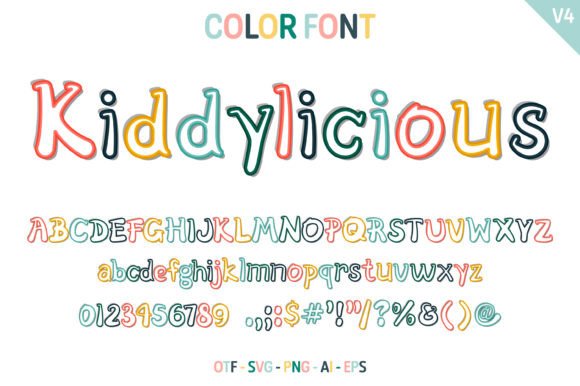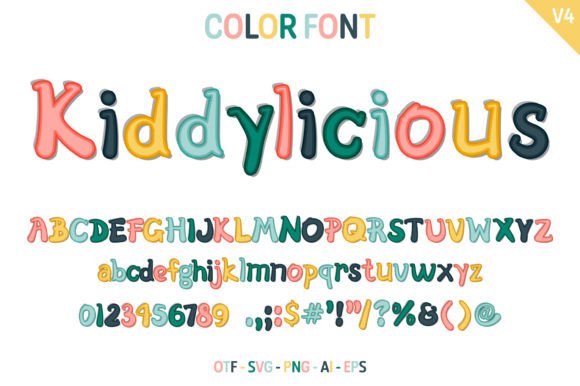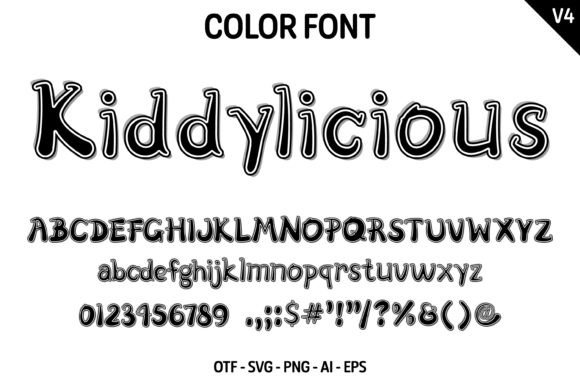
The Joy of Designing for Kids: Introducing the Kiddylicious V4 Font
Remember the thrill of creating something special for a child? Maybe it was a birthday card, a handmade gift, or a colorful poster. Whatever it was, you knew you wanted to make it extra special and fun. As a designer, you’ve probably experienced that same excitement when working on projects geared towards kids. That’s where the Kiddylicious V4 Font comes in – a playful and fun color font that’s sure to bring a smile to any child’s face.
This versatile font is designed to make your designs stand out, with rounded edges and bold weight that’s easy to read. With a full set of upper and lowercase letters, numbers, and punctuation, you have the flexibility to create a wide range of designs, from children’s books and posters to logos and more. The Kiddylicious V4 Font is a valuable addition to any designer’s toolkit, offering a unique and creative way to bring your ideas to life.
Kiddylicious V4 Font Key Features
• Font Family: Kiddylicious V4, a playful and child-friendly font designed for various applications.
• Font Size: Designed to be highly legible at various sizes, with optimal readability between 8pt and 24pt.
• Resolution: Suitable for both screen and print, with clear and crisp rendering at resolutions up to 300 DPI.
• Unique Characteristics: Features a unique blend of rounded edges and subtle textures, making it an ideal choice for children’s educational materials, entertainment, and lifestyle brands.
Kiddylicious V4 Font Review
At first glance, Kiddylicious V4 Font seems like a promising addition to any design project. Here’s what I like about it: ✨
• The font has a playful and modern feel to it, making it perfect for children’s products or services.
• The bold and italic styles are well-designed and versatile, allowing for a range of creative applications.
• The font is well-suited for digital use, with clear and readable text at various sizes.
• The regular style can feel a bit too thin, which may not be ideal for print materials or situations where text is small.
• The font family is not as extensive as some other popular fonts, with limited language support.
• The font may not be suitable for corporate or formal branding, as it can come across as too casual.
Overall, I think Kiddylicious V4 Font is a great option for projects that require a fun and modern feel. While it may not be the best choice for every situation, it’s a solid addition to any designer’s toolkit. With some careful consideration of its limitations, I think this font can be a valuable asset for many designers.
The Kiddylicious V4 Font is ideal for designing children’s products, educational materials, and promotional items. It is also suitable for creating fun and playful branding for kids’ businesses or organizations.
Getting the Most Out of the Kiddylicious V4 Font
To get the most out of the Kiddylicious V4 Font, experiment with different font sizes, colors, and combinations with other fonts. You can also use the font in conjunction with bold, italic, or underlined text to add emphasis and visual interest.